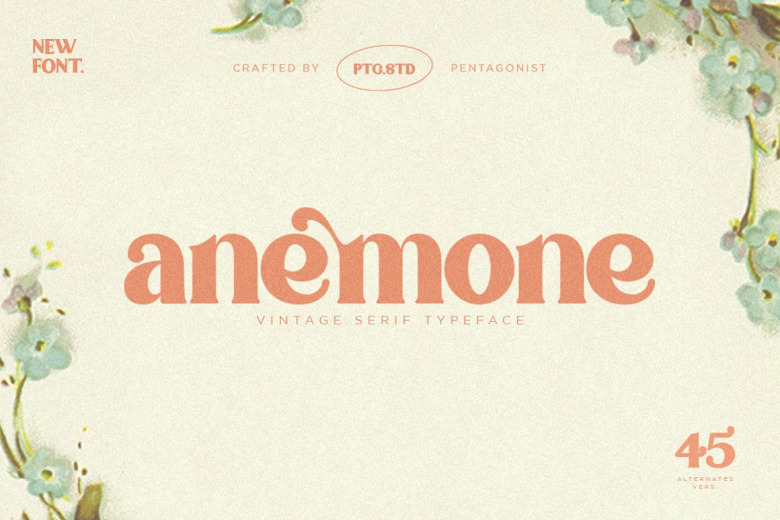
Anemone Font
Anemone is a vintage serif character inspired by stylish and vintage. This typeface is perfect for elegant & luxurious logos, book or movie title designs, fashion brands, magazines, clothing, fonts, quotes and more!!.
Anemone Serif Font